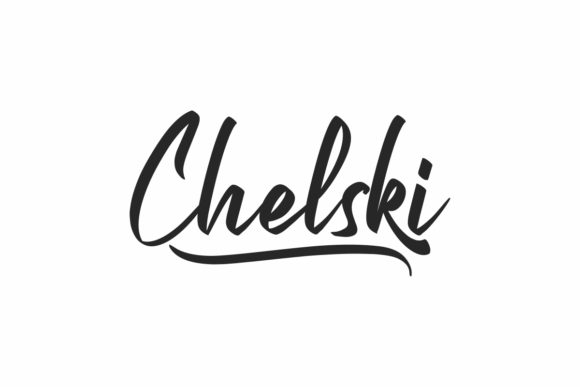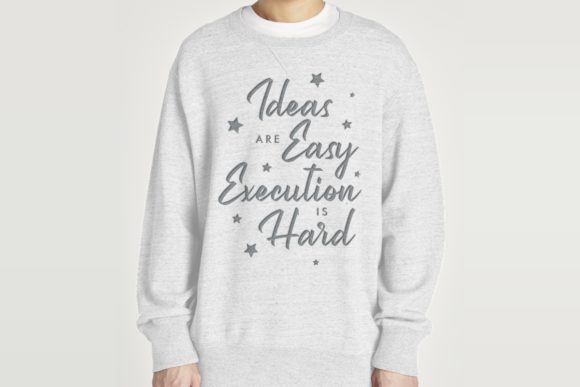
About Chelski Font
Chelski sounds like a beautiful and trendy handwritten font that brings a unique and nostalgic character to your designs. With its strong, confident, and dynamic appearance, Chelski has the power to make a bold statement and leave a lasting impression on your audience.
The beauty of Chelski lies in its handwritten style, which adds a personal and authentic touch to your designs. The irregularities and variations in the letterforms give it a natural and organic feel, evoking a sense of warmth and personality. This handwritten charm can bring a sense of nostalgia and evoke memories of handwritten notes and letters from the past.
Chelski’s strong and confident demeanor makes it a great choice for designs that require a bold and impactful presence. Whether you’re designing a logo, poster, or headline, Chelski’s bold strokes and expressive letterforms will command attention and convey a sense of strength and assurance. It can help you create designs that stand out and grab the viewer’s attention.
Additionally, Chelski’s trendy aesthetic adds a modern flair to your designs. It combines the charm of a classic script font with contemporary elements, making it a versatile choice for various design styles. Whether you’re working on branding, packaging, social media graphics, or any other design project, Chelski’s trendy handwritten look will add a touch of style and sophistication.
Chelski’s nostalgic character and trendy appeal make it a font that can be used in a wide range of design contexts. It can elevate your branding materials, adding a personal and relatable touch to your company’s image. It can bring a sense of creativity and individuality to your marketing materials, helping you stand out from the competition. And it can enhance the overall aesthetics of your designs, making them more visually appealing and engaging.
In summary, Chelski is a beautiful and trendy handwritten font that combines strength, confidence, and nostalgic character. Its handwritten style adds a personal and authentic touch to your designs, while its bold and dynamic appearance makes a strong statement. Whether you’re aiming for a vintage-inspired design or a modern and trendy look, Chelski can bring tons of character and charm to your projects.